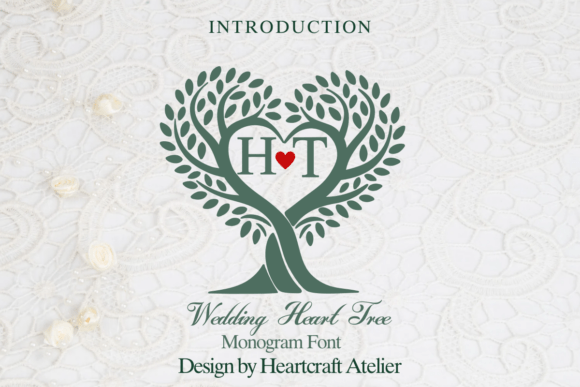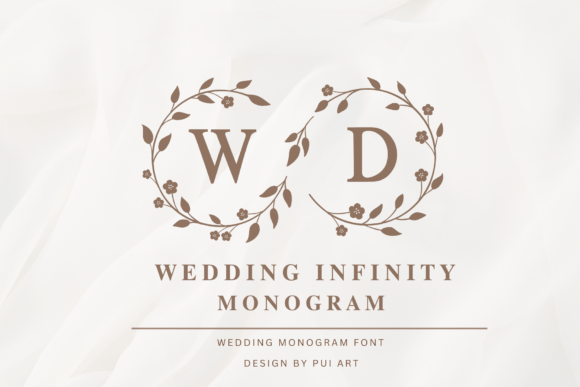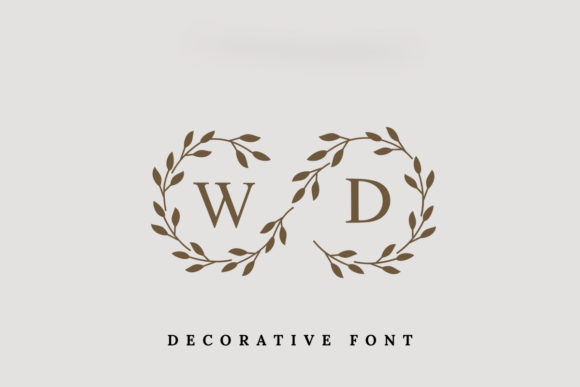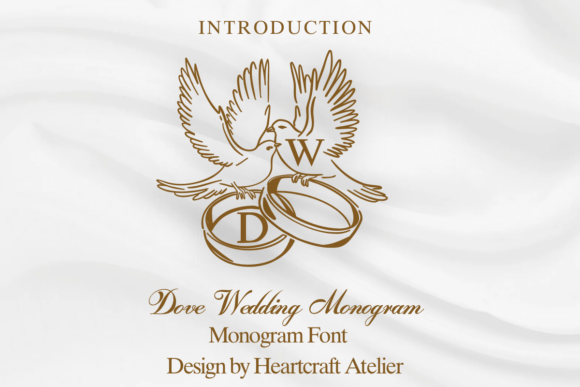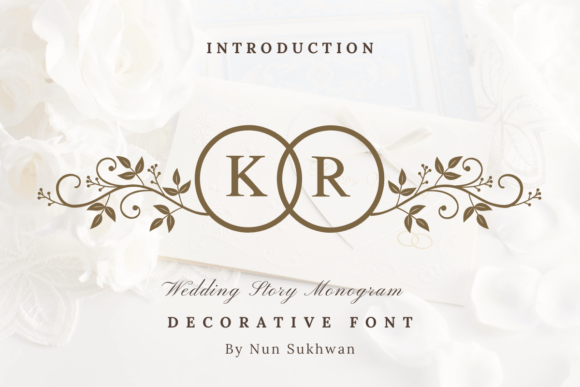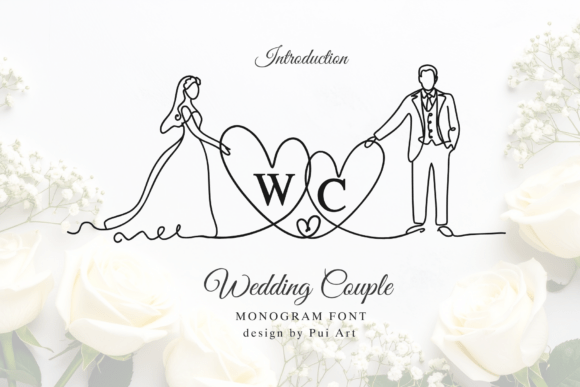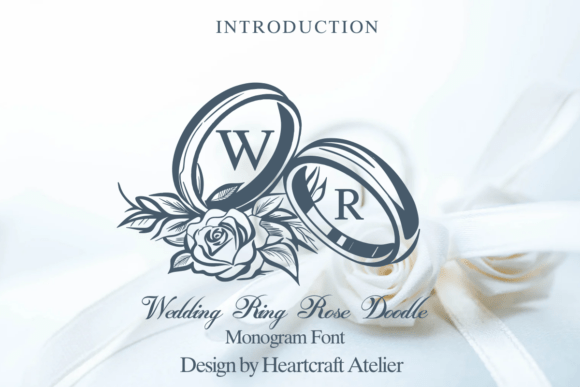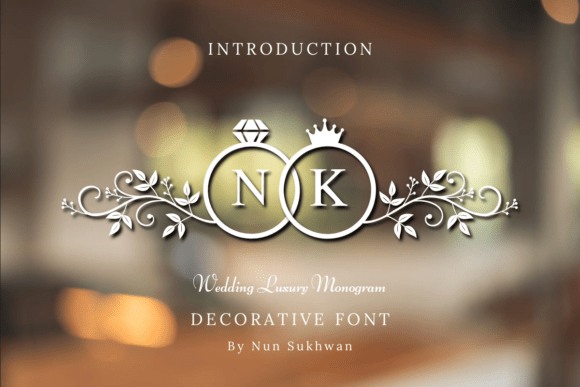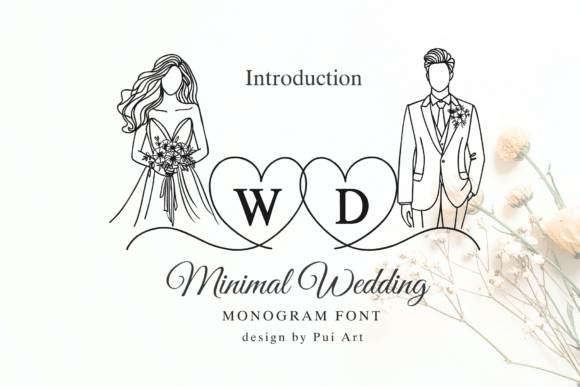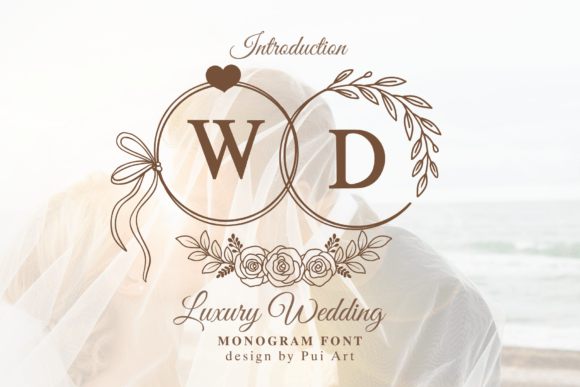
20 Stunning Wedding Monogram Fonts to Brand Your Big Day
A monogram is the simplest way to turn two names into one timeless mark, and the right wedding monogram fonts make it effortless.
Whether you want a floral frame, a laurel wreath or clean linked initials, these wedding monogram fonts are built for invitations, crests, stamps and keepsake stationery.
How to Choose the Best Wedding Monogram Fonts
Start with your initials and how they lock together. Some monogram fonts type a ready-made frame around a letter, while others are meant to be combined by hand.
Think about where the mark will live. A detailed crest shines on a welcome sign but can clog at stamp size, so test small. If you are new to the art of the monogram, start with a framed style that does the layout for you.
- Check the layout. Framed monograms place one letter inside a wreath; duo styles let you stack initials.
- Keep it readable. Two or three initials is plenty for a clean crest.
- Reuse the mark. A good monogram becomes your logo across signage, favours and thank-you cards.
The easiest winning formula with wedding monogram fonts is contrast: choose one expressive face as your hero, then pair it with one quiet, highly legible font for the practical details. Reuse that exact pairing across your invitations, signage and wedding website so the whole suite feels intentional and calm.
The 20 Best Wedding Monogram Fonts
Wedding Infinity Heart
A decorative alphabet built around a looping infinity-heart motif, so every letter arrives already dressed up. Lovely for the little keepsake pieces guests actually hold onto.
Wedding Heart Tree
A sweet decorative face threaded with little heart-and-tree details, made for sentimental, crafty projects. It is at its best on cards, favours and anything that should feel handmade.
Wedding Infinity Monogram
Each capital sits inside a delicate round flower frame, so a single letter becomes a finished crest. Type two initials and you have an instant invitation seal.
Wedding Day Monogram
A minimal serif monogram tucked inside a laurel wreath, equal parts refined and understated. It works beautifully as a reusable mark on stationery and upscale gifts.
Dove Wedding Monogram
A decorative monogram font with gentle dove detailing that leans soft and romantic. Made for keepsake cards, favours and personalised touches.
Wedding Story Monogram
A handwritten monogram style that feels personal and story-driven rather than formal. Nice for couples who want their mark to look hand-drawn.
Wedding Couple Monogram
A clever one-line-art alphabet where letters double as a bride-and-groom illustration. It turns a simple monogram into a tiny, intimate portrait of the couple.
Wedding Ring Rose Doodle
A specialty monogram face that frames initials with intertwined wedding bands and hand-sketched roses. The illustration-style frames do the decorating for you.
Wedding Luxury (Ring & Crown Monogram)
An opulent monogram framed by diamond-topped ring enclosures, royal crowns and trailing filigree. Built for couples who want their initials to look genuinely regal.
Minimal Wedding Monogram
A modern A to Z monogram pairing minimalist bride-and-groom figures with heart-shaped initials. Clean, contemporary and Cricut-ready for decals and signage.
Luxury Wedding Monogram
A timeless A to Z monogram dressed with heart accents, ribbon bows and botanical wreaths. Designed for personalised initials, bridal decor and engagement pieces.
Classic Wedding Monogram
A circular monogram alphabet featuring timeless bride-and-groom silhouettes and decorative swirls. A refined pick for engraving, laser cutting and custom decor.
Wedding Romantic
A serif decorative font where each capital sits inside a hand-drawn botanical wreath, becoming an instant monogram. Clean serif bones keep it readable while the foliage adds romance.
Line Art Wedding Monogram
A delicate bride-and-groom monogram drawn in fine, continuous lines that feel like modern gallery art. Perfect for understated, contemporary wedding branding.